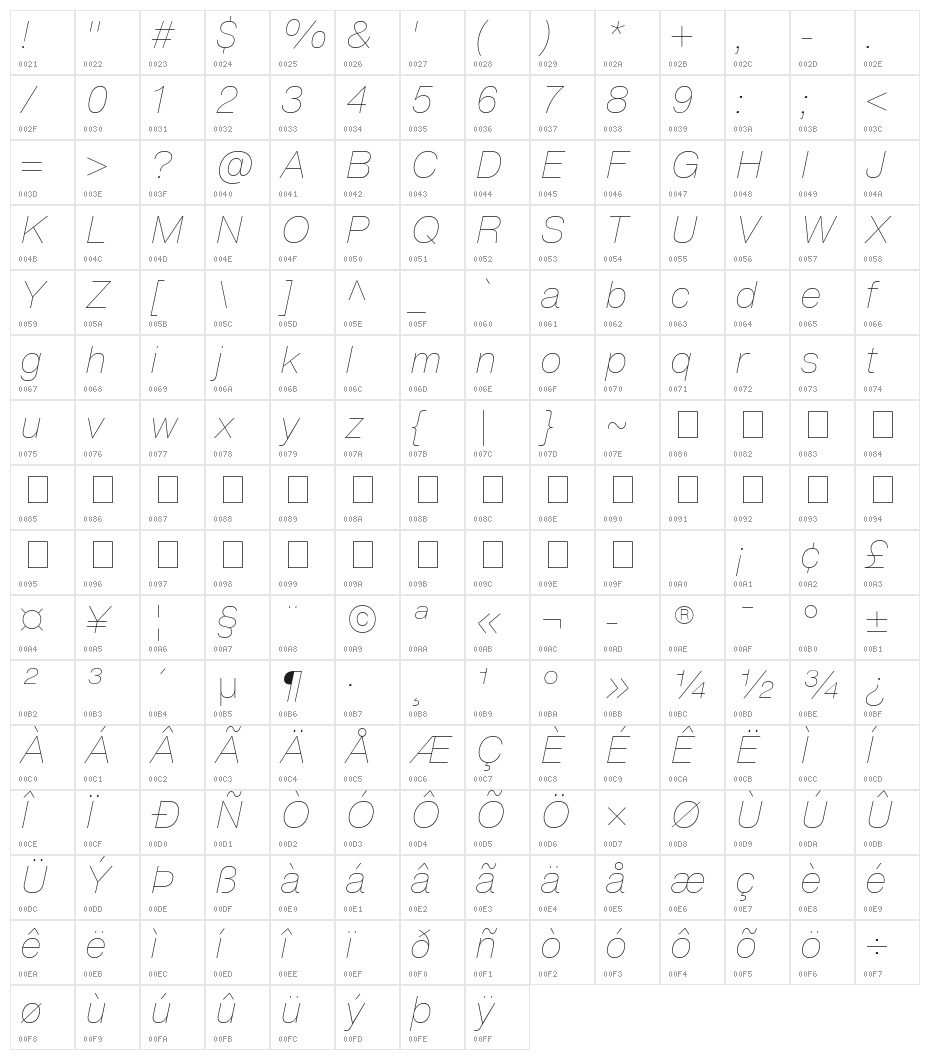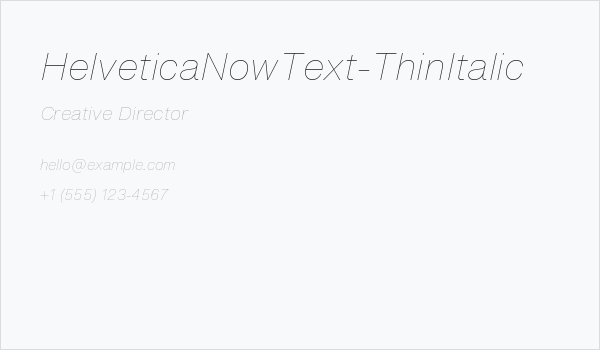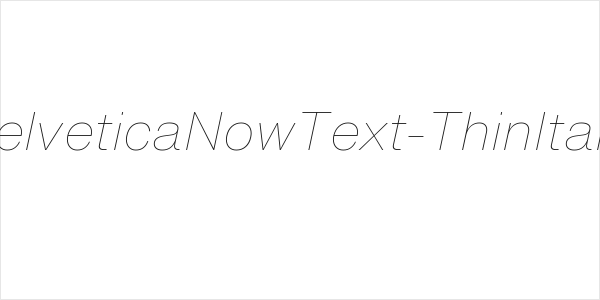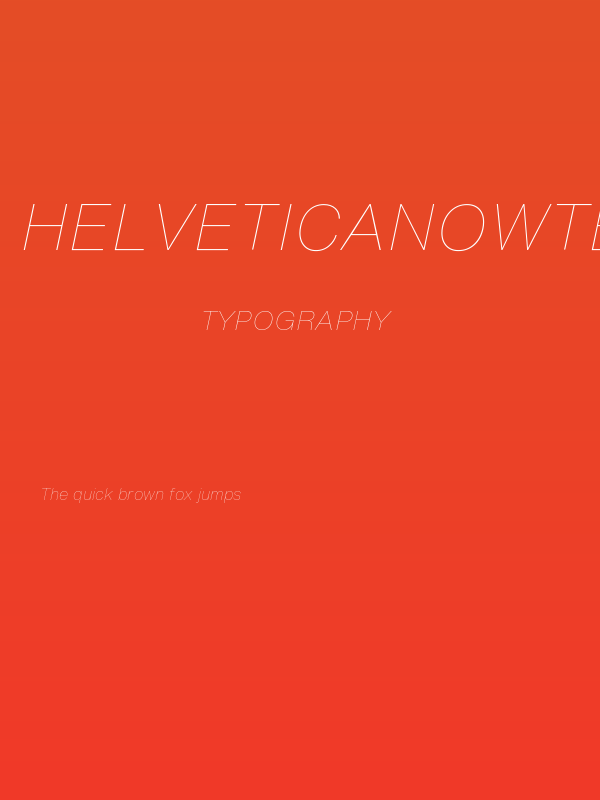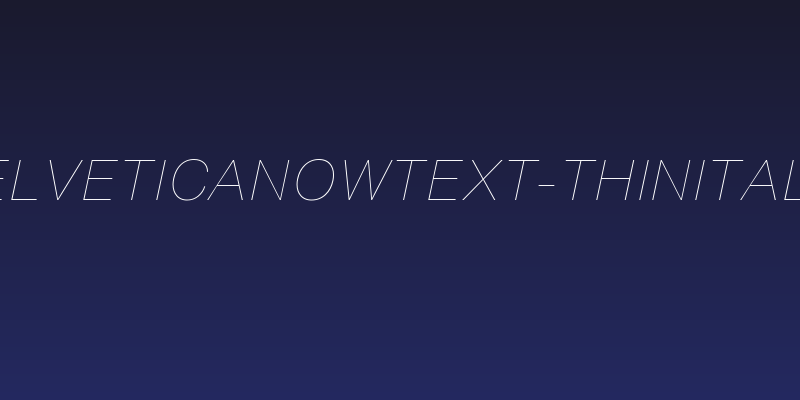
HelveticaNowText-ThinItalic Font
HelveticaNowText-ThinItalic Description
This font features a sleek and modern design with a thin, elegant stroke that gives it a refined and sophisticated appearance. The italic style adds a dynamic and fluid motion to the characters, enhancing its contemporary look. Its clean lines and minimalistic approach make it highly versatile for various design applications. The font maintains a consistent and harmonious flow across all characters, ensuring readability while retaining its stylish edge. The thin weight and italic slant contribute to its airy and light feel, making it suitable for projects that require a touch of elegance and modernity.
| Proposed Projects | Ideal for fashion magazines, luxury branding, modern websites, and elegant invitations. |